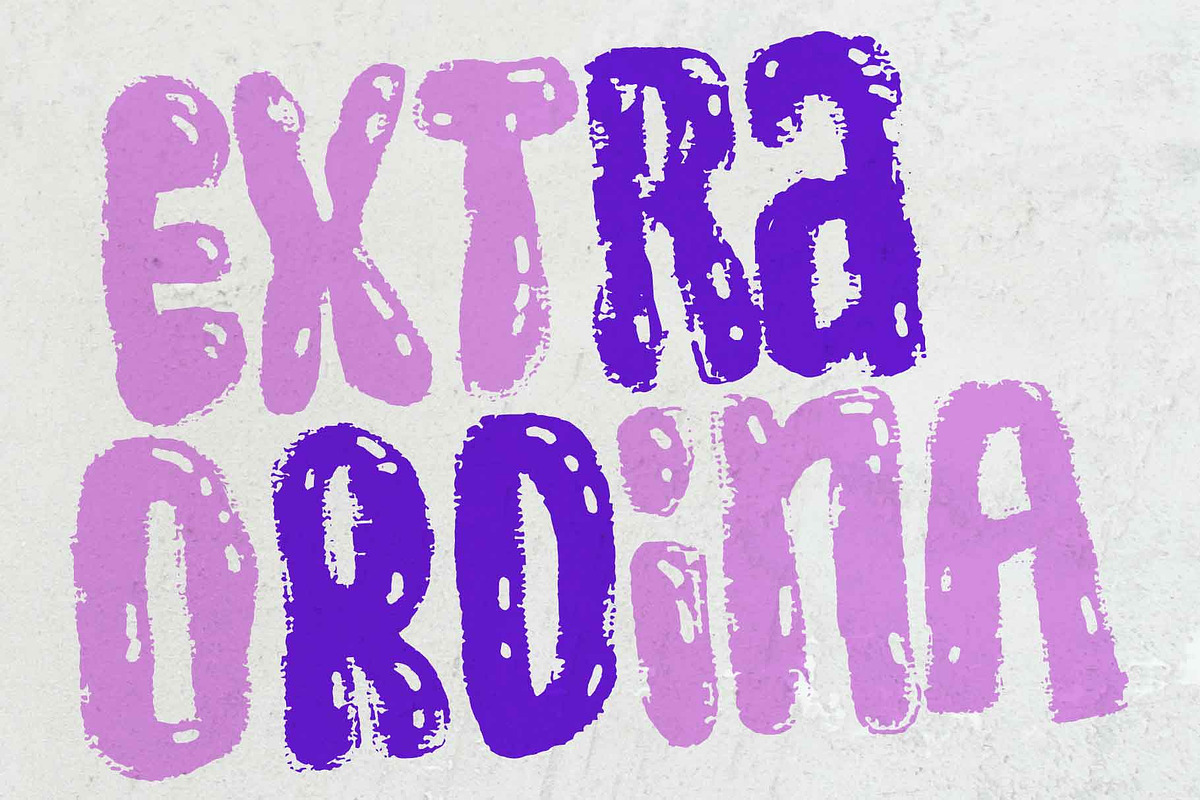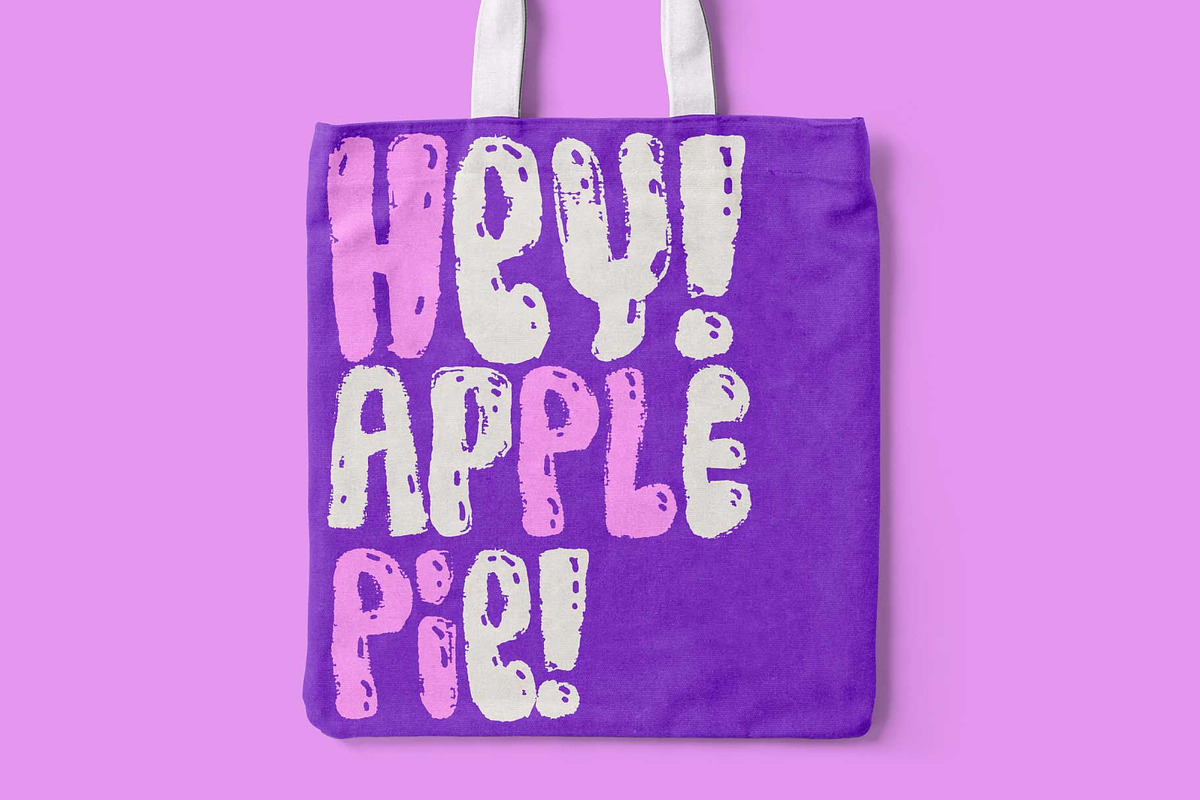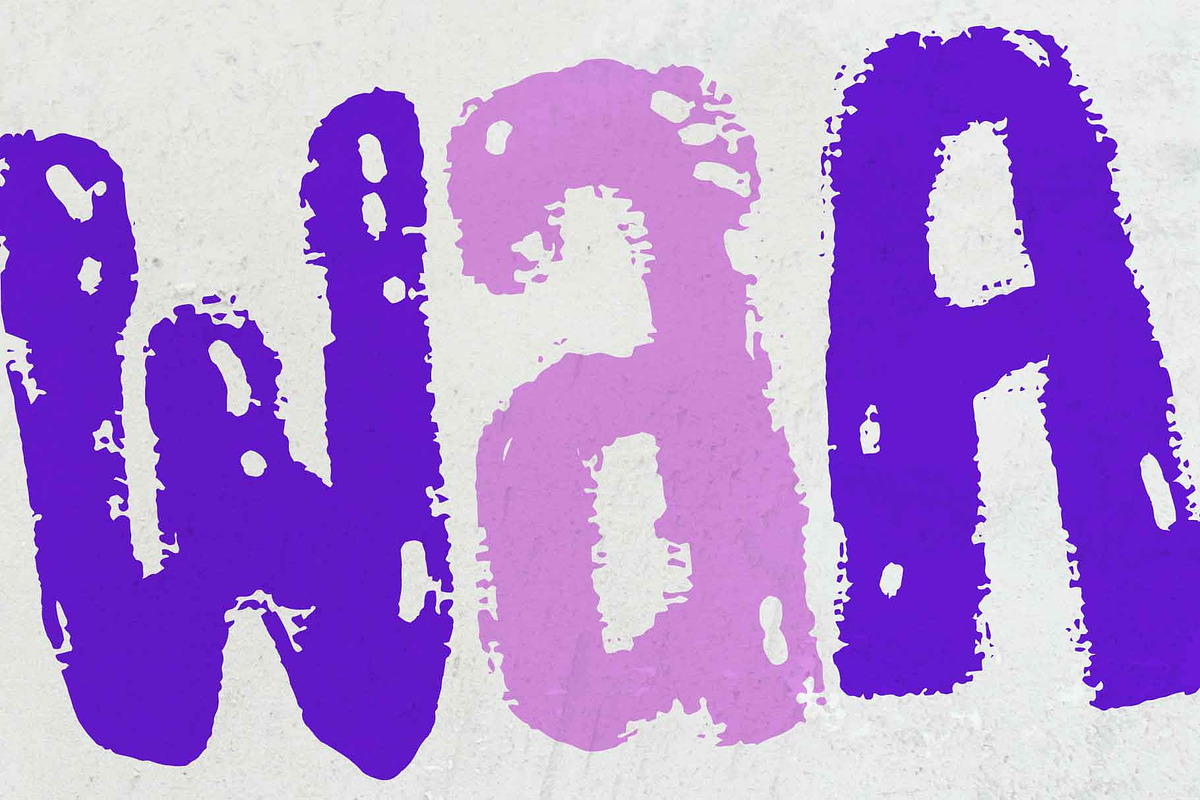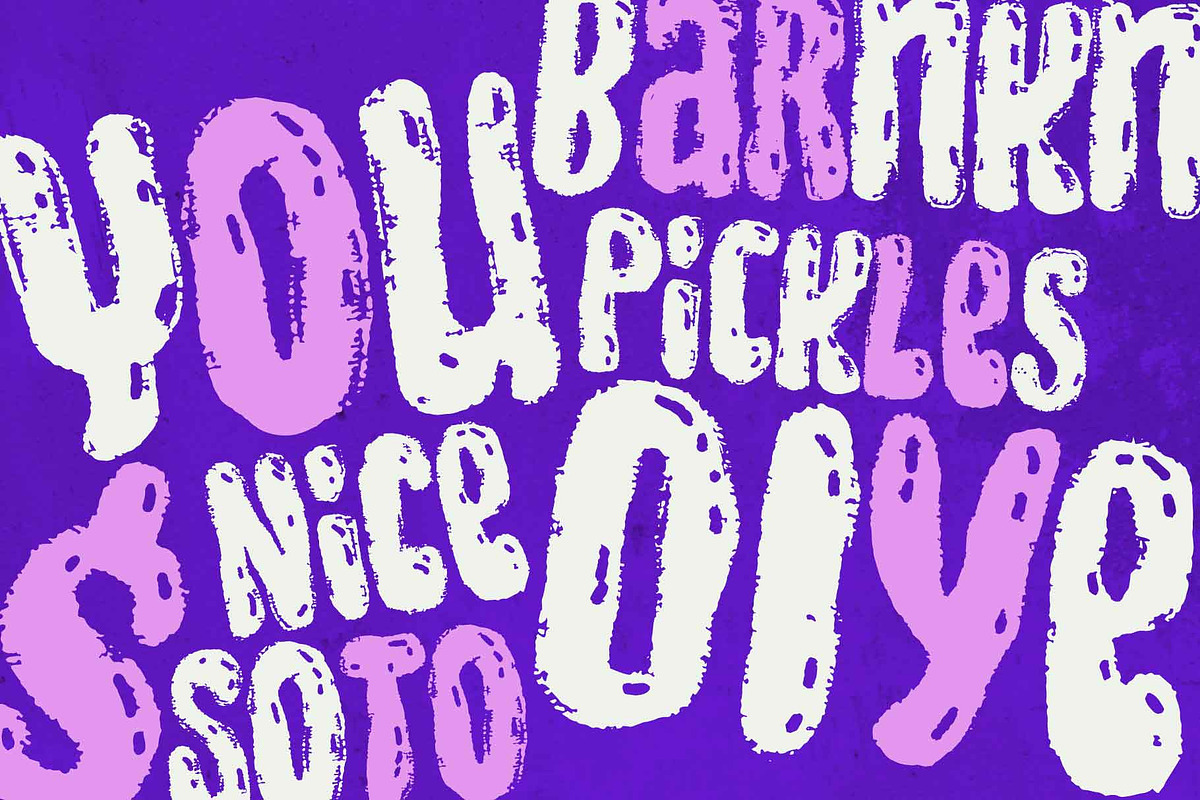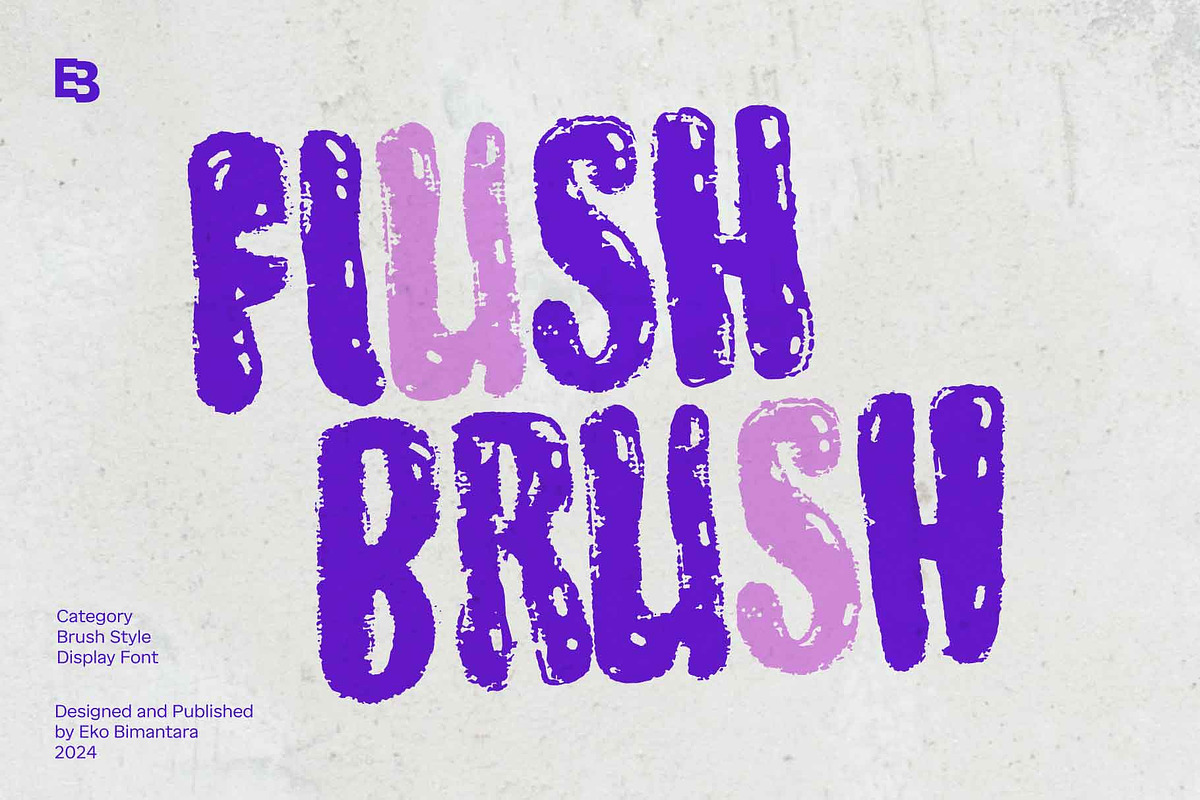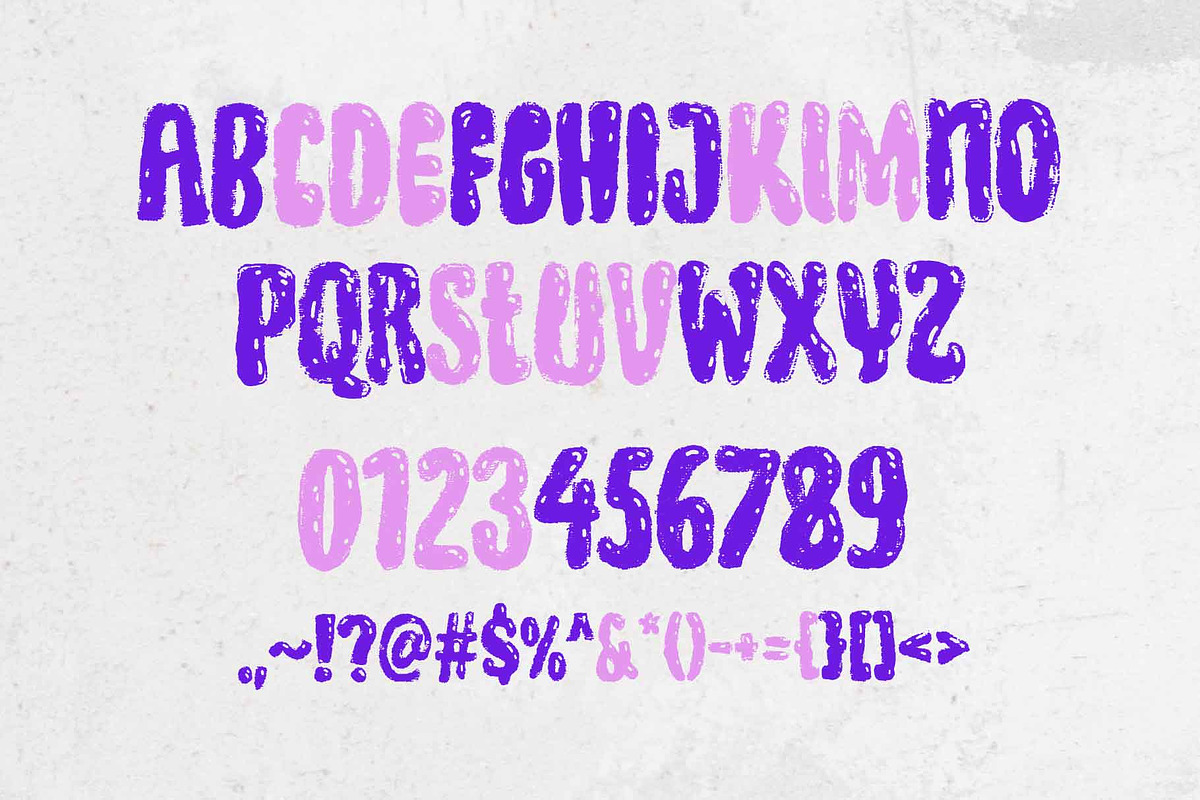
Flush Brush; Brush Display Font
Flush Brush is an artistic brush display font with a condensed, scatter style and quirky, fun personality. Featuring a unique unicase design, it adds a bold, expressive touch to any project. Perfect for themes such as artistic, rough, and quirky design, it brings a distinctive, creative flair. Ideal for display use in large sizes, titles, headers, website designs, brand identities, product packaging, and more, Flush Brush makes an impact in a wide range of graphic and creative projects.